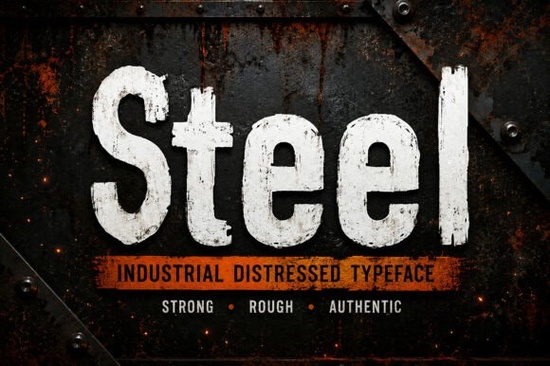
If you're working on a project that needs to look tough, authentic, and grounded in real-world grit like a construction brand, workwear line, or retro industrial poster the Steel Font might be exactly what you’re missing. This distressed typeface captures the raw texture of weathered metal, factory signage, and vintage machinery without looking forced or overdone. It’s not just another bold font; it’s built with intentional imperfections that give your designs instant character.
What makes Steel stand out is how naturally it blends ruggedness with readability. Even with its worn edges and uneven surfaces, each letter remains clear and functional whether you’re using it for a logo on a steel toolbox or a headline on a social media ad. The font includes full uppercase and lowercase letters, numbers, punctuation, and multilingual support, so it works across a wide range of projects and audiences.
When should you use a distressed industrial font like Steel?
Distressed fonts aren’t right for every project but when the mood calls for authenticity and strength, they’re unmatched. Steel shines in contexts where durability, heritage, or manual craftsmanship matter:
- Industrial branding – Think welding shops, fabrication studios, or heavy equipment suppliers.
- Workwear and apparel – T-shirts, caps, or jackets that need a no-nonsense attitude.
- Vintage posters and packaging – Especially for craft beer, coffee, or artisanal goods with an old-school vibe.
- Book covers and merchandise – For genres like dystopian fiction, survival guides, or urban photography.
- Outdoor and adventure brands – Where resilience and ruggedness are part of the story.
How does Steel compare to other display fonts?
Not all display fonts carry the same weight or texture. While something like Happy Brush leans into playful, hand-painted energy, Steel is all about structural integrity and weathered realism. Similarly, Welcome Christmas brings seasonal cheer, and Shocking Palm Cake offers tropical flair but neither fits a factory floor or a tool catalog.
Will it work for small businesses and crafters?
Imagine stamping “Forged & Co.” on a leather patch for work gloves, or labeling a batch of handmade soap as “Ironworks Supply” Steel adds credibility without extra effort. Its distressed texture is baked into the glyphs, so you don’t need to layer grunge overlays or spend hours aging your text manually.
Tips for using Steel effectively
Because of its bold nature, less is often more. Stick to headlines, logos, or short phrases rather than body text. Pair it with clean, neutral sans-serifs (like Helvetica or Montserrat) to let Steel’s texture take center stage without visual competition. Also, test print samples before finalizing packaging or apparel some distressed details may soften on certain materials, which can actually enhance the vintage feel.
And remember: while Steel looks rugged, it’s still highly legible. That balance is rare in distressed fonts, which often sacrifice clarity for style. Here, you get both.
Before you start your next project, check this quick list:
- ✅ Do you need a font that says “built to last” without saying it outright?
- ✅ Is your audience drawn to authenticity, craftsmanship, or industrial heritage?
- ✅ Will your design appear on physical products (apparel, labels, signs) where texture matters?
- ✅ Are you comfortable using display fonts only for accents not paragraphs?
If you answered yes to most of these, Steel Font could be your new go-to. Give it a try on your next logo, poster, or product label and let the metal do the talking.